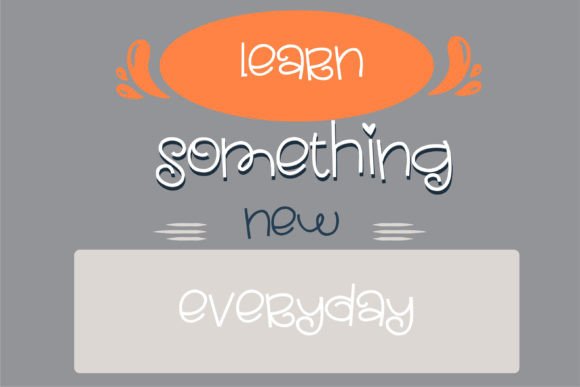
Schoolgirl is a handwritten sans serif that is youthful and silly with curls and hearts throughout. Add this super cute girly font to any of your creative projects, and it will seduce your audience with its style and form.
Schoolgirl Font